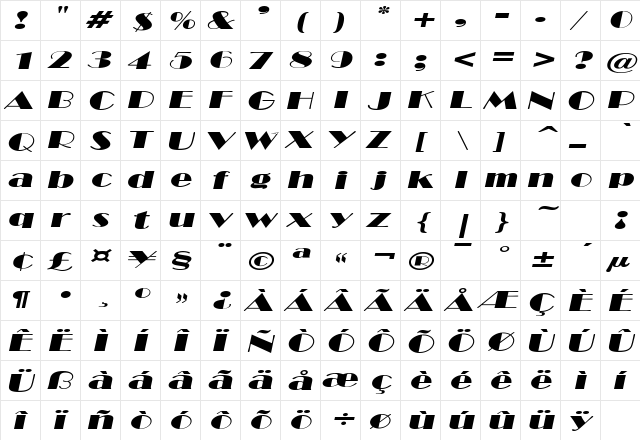
NewYorkDecoExtended Oblique
Design Context for NewYorkDecoExtended Typeface
NewYorkDecoExtended is a composed and adaptable typeface that performs quietly and consistently across a wide range of design contexts. The slanted form adds forward momentum and visual energy.